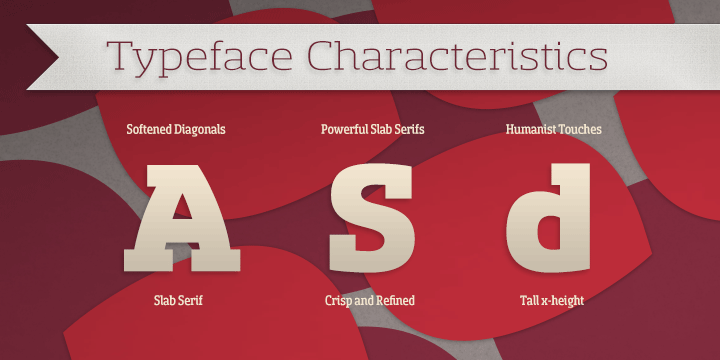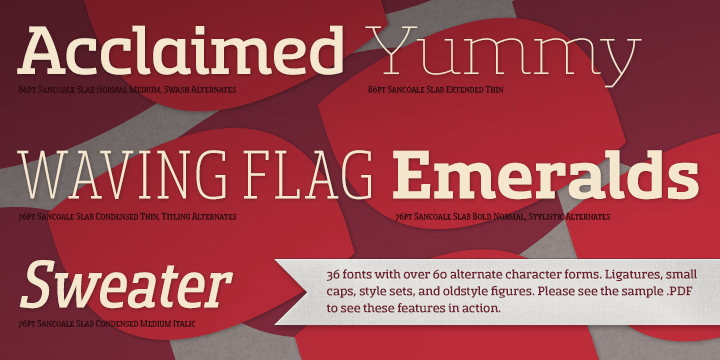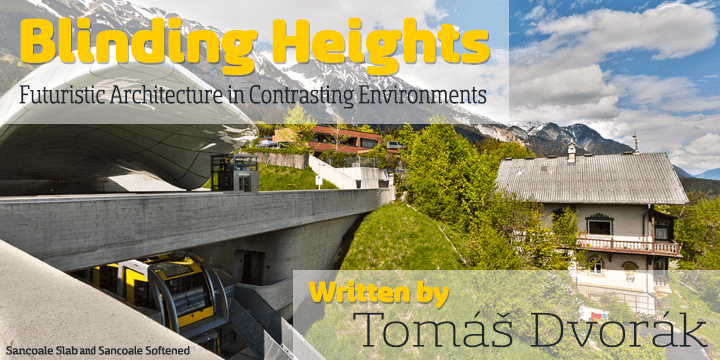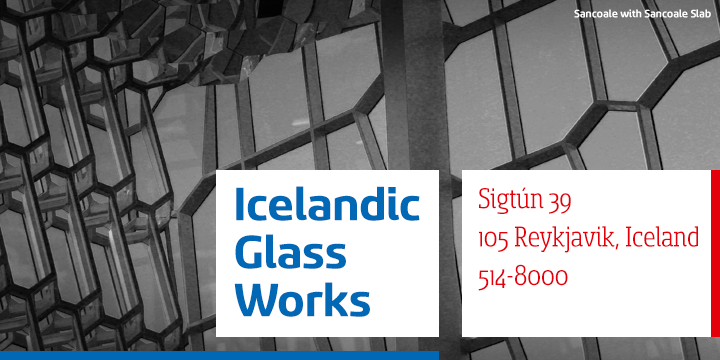
Sancoale Slab
Font Family by Insigne
Buy NowThe contemporary feel of the Sancoale superfamily takes a bolder turn with this futuristic slab. Built from Sancoale's successfully simple geometry, Slab's serif elements and tall x-height give the face an energetic, yet clean figure that easily complements its cousins: Sancoale Softened--a sans with blunted terminals; Sancoale Narrow; and, of course, the original Sancoale itself. The weights of each member have been balanced carefully to ensure compatibility with the others, and when used together, the combination creates a powerful design that is easy to identify.
With weights ranging from the classier Thin to the authoritative Black, Slab opens the door to a range of applications. Used in different text sizes, its tech image is legible and neutral enough for longer bodies of copy--both in print and on the web. Have a more prominent need? The web font also stands out well in a headline or even as a display face. Slab